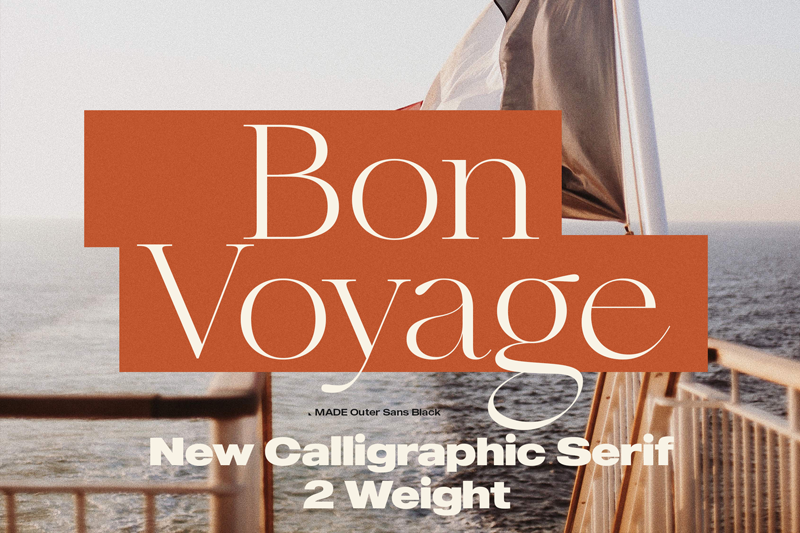
MADE Bon Voyage is a new modern calligraphic serif typeface. The Bon Voyage creates art in the headline and text. The Bon Voyage includes 2 styles: Thin and Regular. MADE Bon Voyage will perfect for many project: fashion, magazines, logo, branding, photography, invitations, wedding invitation, quotes, blog header, poster, advertisements, postcard, book, websites, etc. Font is FREE for PERSONAL USE. Contact me mail for commercial use and questions: madetypeinfo@gmail.com ----- FOR PERSONAL AND COMMERCIAL WORK https://www.fontspring.com/fonts/madetype https://creativemarket.com/MadeType https://www.youworkforthem.com/designer/1002/madetype/ https://crella.net/store/madetype/ ----- https://www.behance.net/madetype Email for questions: madetypeinfo@gmail.com |